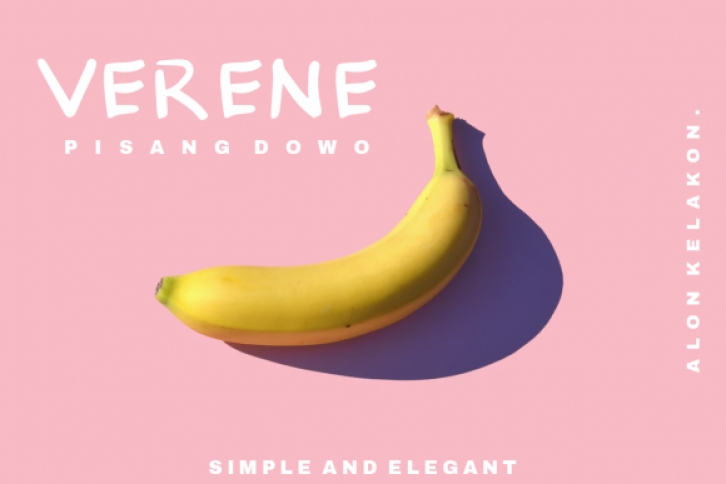
Verene is a childish, readable display font featuring the perfect amount of friendliness. Whether you’re using it for crafting, digital designing, presentations or greeting cards making, it’s perfect!